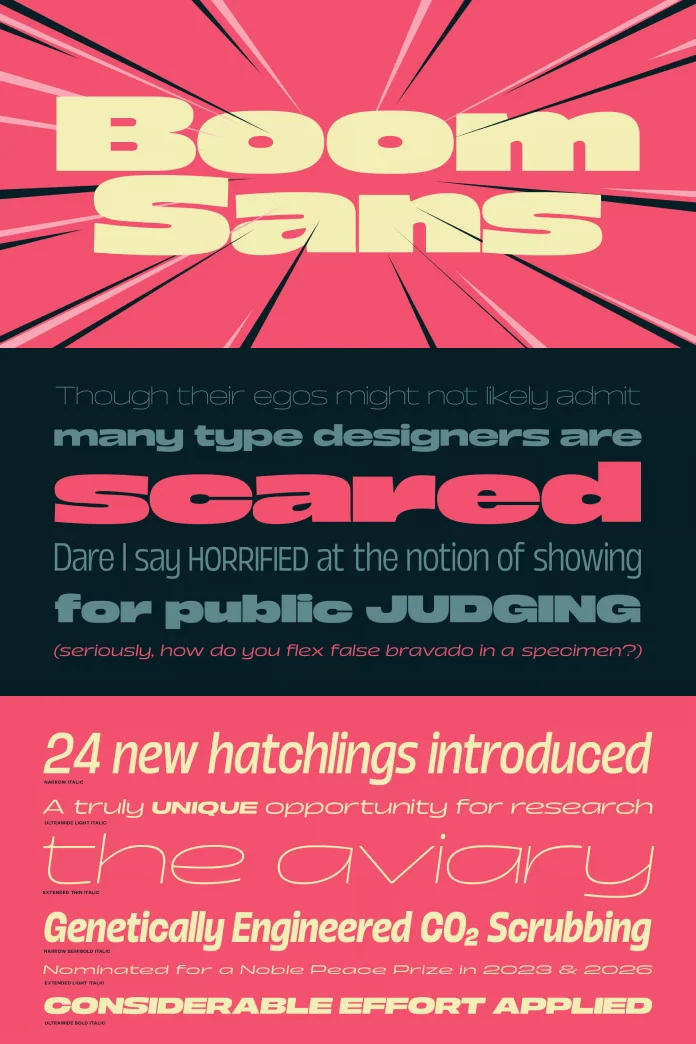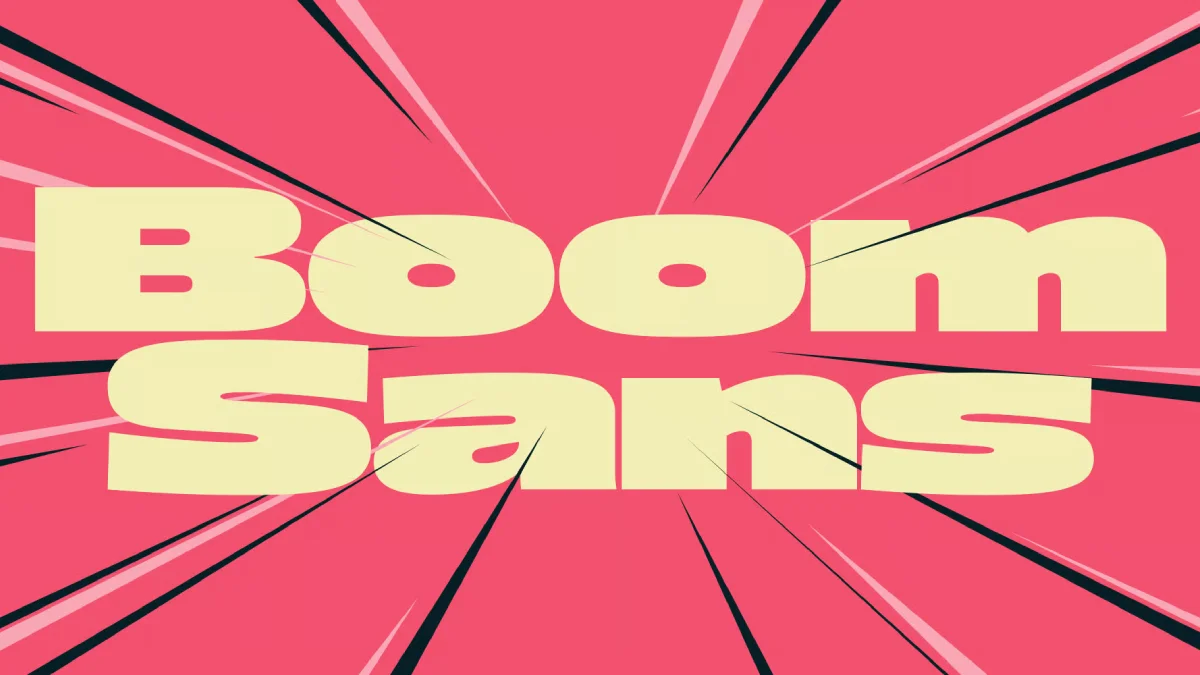
Boom Sans is the Typeface that’s Redefining Character in Design
Let us introduce you to the Boom Sans font family from Positype. It’s a carefully crafted typeface designed by the acclaimed Neil Summerour. Boom Sans aims to make a significant impact on your design projects, offering both exceptional readability and a distinct aesthetic. Could Boom Sans be the versatile workhorse your creative toolkit is missing?
Positype, the Georgia-based type foundry, is the creative home of Neil Summerour. This is a designer who truly lives and breathes letters. Summerour lectures, conducts workshops, draws intricate letterforms, and masterfully crafts typefaces. His dedication is evident in his numerous accolades. He has won the Type Directors Club Certificate of Typographic Excellence six times. Furthermore, his Japanese typeface, Tegaki, received the People’s Choice Award in the 2012 Morisawa Type Design competition. This passion and expertise are poured into every font, including the remarkable Boom Sans.
Meet the Maestro: Neil Summerour and the Vision of Positype
Neil Summerour is not just a type designer; he is a lettering artist of considerable renown. His work graces campaigns and products for globally recognized brands. Think Oculus, Facebook, Girl Scouts of America, Victoria’s Secret, Revlon, and even the iconic David Bowie. BBC, L’Oreal, Panera, Audible, and Molson Coors also feature his typographic artistry. This extensive experience with diverse client needs undoubtedly informs his typeface design. He understands what brands require. He knows how type communicates. Currently, Summerour also serves as Chair for the Society of Typographic Aficionados, further cementing his role as a leader in the typographic community.
Positype, under Summerour’s direction, isn’t about churning out countless fonts. Instead, the focus is on quality, innovation, and creating typefaces with lasting value. Each font family, like Boom Sans, is a product of meticulous research, drawing, and refinement. The foundry’s ethos reflects a deep respect for the craft of typography. It also shows a keen understanding of its power in visual communication. When you choose a Positype font, you are investing in a piece of art engineered for performance. You are getting a design tool infused with experience and passion. This background makes the Boom Sans family particularly noteworthy.
What Makes Boom Sans Explode with Potential?
So, what exactly is Boom Sans? It is a contemporary sans-serif typeface family that masterfully balances geometric precision with humanist warmth. Imagine clean lines and consistent forms. Now, picture subtle details that give it an approachable, organic feel. This careful blend prevents it from appearing sterile or overly mechanical, a common pitfall for some geometric sans-serifs. Instead, it feels alive and engaging.
The name “Boom” itself hints at its character. It suggests impact, presence, and an undeniable energy. This isn’t a font that whispers; it makes a clear, confident statement. Yet, this “boom” isn’t aggressive. It’s the sound of clarity, of a message perfectly delivered. The Boom Sans font family offers a wide spectrum of weights and styles, ensuring its voice can be modulated to suit any context. From delicate headlines to robust body text, Boom Sans delivers. Its design prioritizes legibility across all sizes and media. This makes it an incredibly practical choice for a vast array of applications. You’ll find its letterforms are open and well-proportioned, contributing to a comfortable reading experience. Does this sound like a typeface that could elevate your designs?
The Unrivaled Versatility of the Boom Sans Font Family
One of the standout features of Boom Sans is its sheer versatility. This isn’t a one-trick pony. The Boom Sans font family typically includes a comprehensive range of weights. Think about possibilities from a delicate Hairline or Thin, perfect for sophisticated, airy headlines. Then, consider Light and Regular weights, ideal for legible and elegant body text. As you move up, Medium, Semibold, and Bold weights offer increasing emphasis for subheadings or highlighting key information. Finally, powerful Black or UltraBlack weights can create truly impactful statements in display settings.
Moreover, many of these weights within the Boom Sans collection are often accompanied by corresponding italic styles. These are not simply slanted versions of the roman. True italics are meticulously drawn to complement their upright counterparts, offering a distinct yet harmonious typographic texture. This expansive range means you can build complex typographic hierarchies using only the Boom Sans family. This ensures visual consistency and brand cohesion across all your materials. How could such a range empower your next project? Imagine the ease of finding the perfect typographic nuance without ever leaving the Boom Sans ecosystem. This flexibility is a massive advantage for any designer.
Boom Sans in Practical Application: Where Does It Shine?
The true test of any typeface lies in its application. Where does Boom Sans truly make its mark? Its clean, modern aesthetic, combined with excellent legibility, makes it a prime candidate for branding and logo design. “Is this typeface good for logos?” you might ask. Absolutely. Its range of weights allows for scalable and impactful wordmarks. The inherent character of Boom Sans can help create a memorable and contemporary brand identity. Consider its use in “Positype fonts for corporate identity”; it projects professionalism without sacrificing warmth.
For web design and user interface (UI) design, Boom Sans is a stellar performer. Its on-screen legibility is crucial for positive user experiences. “Using Boom Sans in user interface design” means clear navigation, readable buttons, and pleasant text consumption on various screen sizes and resolutions. Its geometric underpinnings lend themselves to structured layouts, while its humanist touches prevent digital interfaces from feeling cold. In print, Boom Sans excels in editorial design, brochures, packaging, and corporate communications. Its versatility handles everything from attention-grabbing headlines in magazines to fine print in annual reports. The subtle design details ensure it looks just as good on paper as it does on screen. The consistent performance across these varied applications highlights the thoughtful design behind Boom Sans.